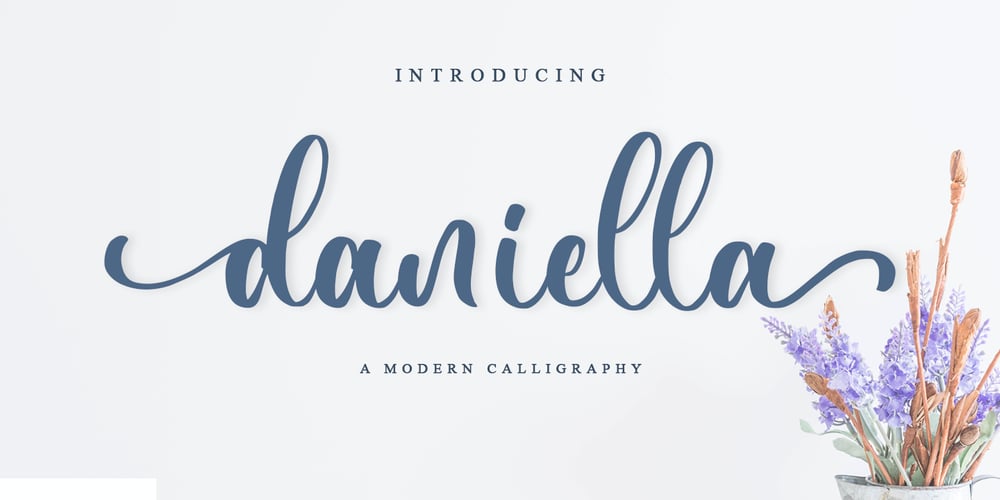
Daniella
Daniella font
Daniella Font Family was designed by Novia Himatunnisa and published by Nissa Nana. Daniella contains 1 styles and family package options. Daniella is a dazzling script font. This font is neatly crafted and highly detailed. Whatever the topic, this font will be a wonderful asset to your font library, as it has the potential to enhance any creation.